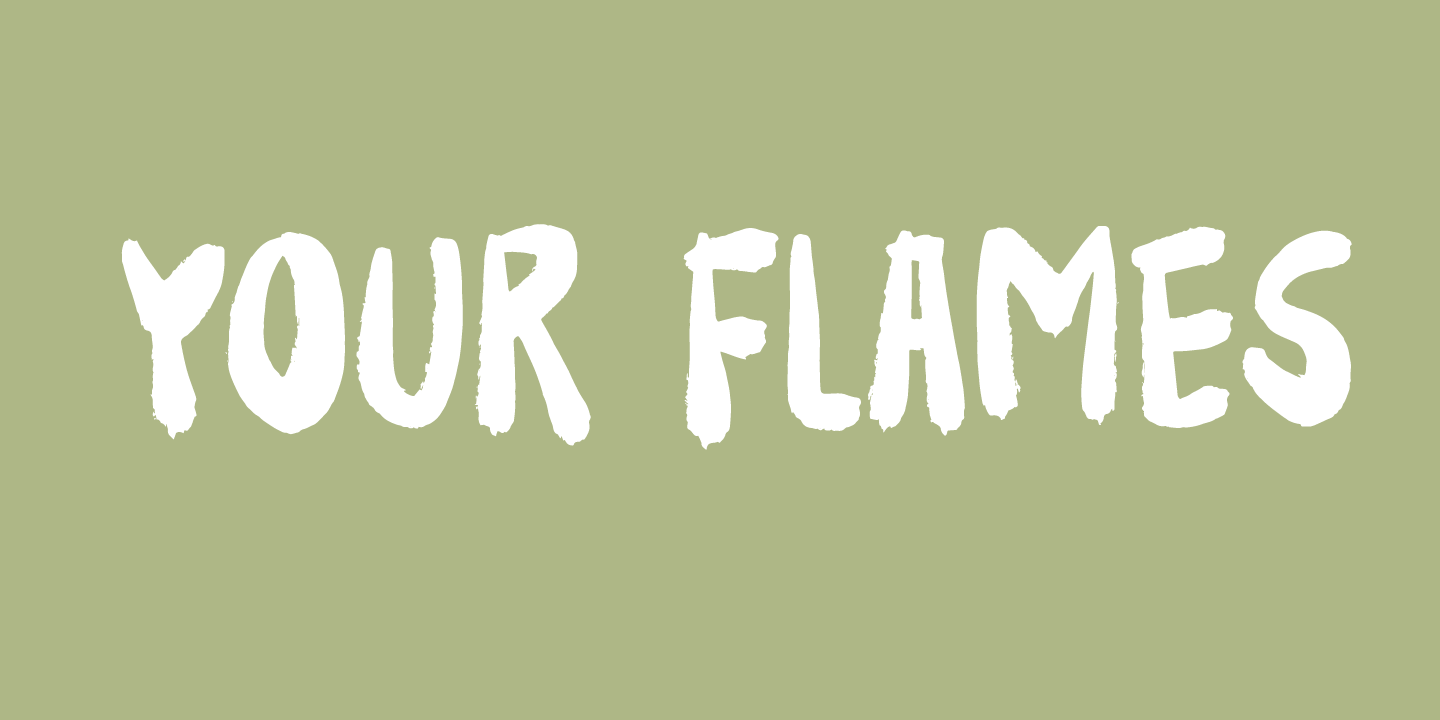
Designed by Jakob Fischer, Your Flames is a brush display font family published by Bogstav.
A slightly wild brush script suitable for posters!
Comes with contextual alternates - meaning the font has 5 different versions of each letter, which automatically cycles as you type